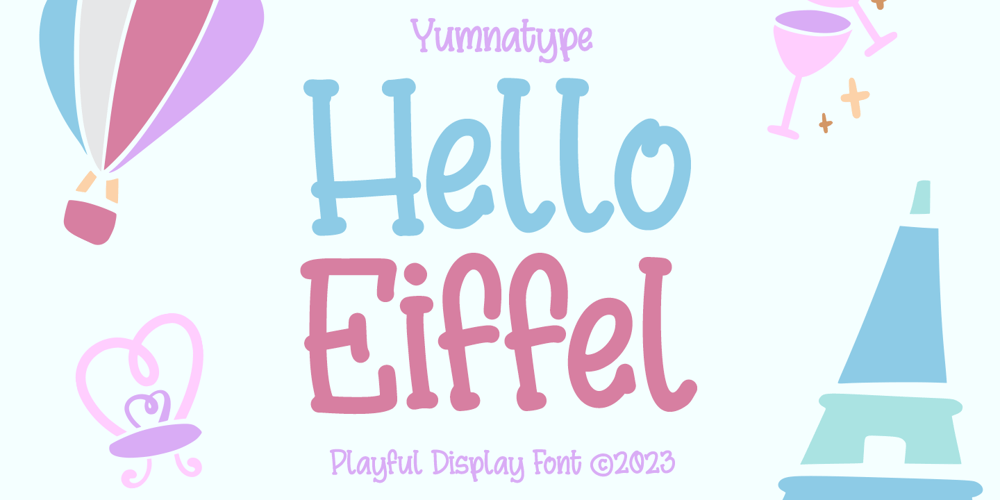
Hello Eiffel Font Family was designed by Donis Miftahudin and published by Yumna Type. Hello Eiffel contains 2 styles and family package options. Being loyal to your same old font will make your designs plain and dull. You need a prominent font to live up your messages without losing the essence of the content itself. Time to welcome Hello Eiffel, a font to help you deliver your desired messages without omitting the whole design.Hello Eiffel is a display font in simple, yet interesting letter shapes with which you can strengthen your desired messages to deliver without distracting attention on the text content itself. Despite its simplicity, Hello Eiffel remains interesting in modern styles to enhance the design’s aesthetic value. Its letters are legible enough to be flexibly applicable for various text sizes, and it gives you a clipart as a bonus. You can enjoy the available features here as well.Features: Multilingual Supports PUA Encoded Numerals and Punctuations Hello Eiffel fits best for various design projects, such as brandings, posters, banners, headings, magazine covers, quotes, printed products, merchandise, social media, etc. Find out more ways to use this font by taking a look at the font preview.Thanks for purchasing our fonts. Hopefully, you have a great time using our font. Feel free to contact us anytime for further information or when you have trouble with the font. Thanks a lot and happy designing.